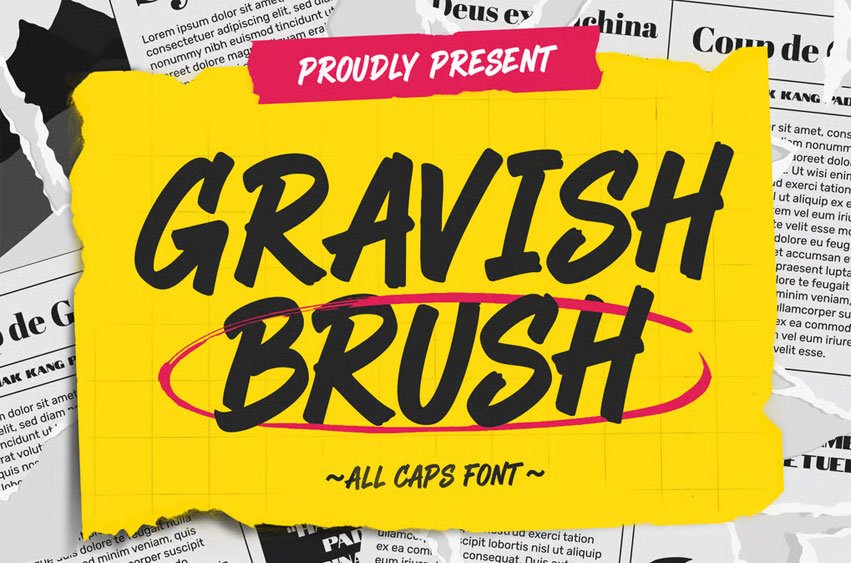
Gravish Brush Font is a powerful all caps brush font with raw strokes and edgy details. The letters look like they were painted quickly with a thick marker, giving your designs a bold, rebellious character. Each glyph has an expressive texture that works perfectly for headlines that need attitude and movement.
Use Gravish Brush for posters, streetwear branding, music covers, YouTube thumbnails, sports graphics, and social media promotions. The rough edges and strong shapes make your text stand out on any background, from gritty textures to clean minimal layouts.
This font includes uppercase letters, numbers, and punctuation, making it easy to build complete compositions for both print and digital projects.
Features: All caps brush display style Rough, textured strokes with energetic movement Numbers and basic punctuation included Perfect for bold titles, logos, and poster layouts Great impact at large sizes Works for both print and digital designs
Suitable For: Music, band, and festival posters Sports and fitness graphics Movie or game titles YouTube thumbnails & social media banners Flyers, zines, and edgy editorial layouts Stickers, merch, and label designs